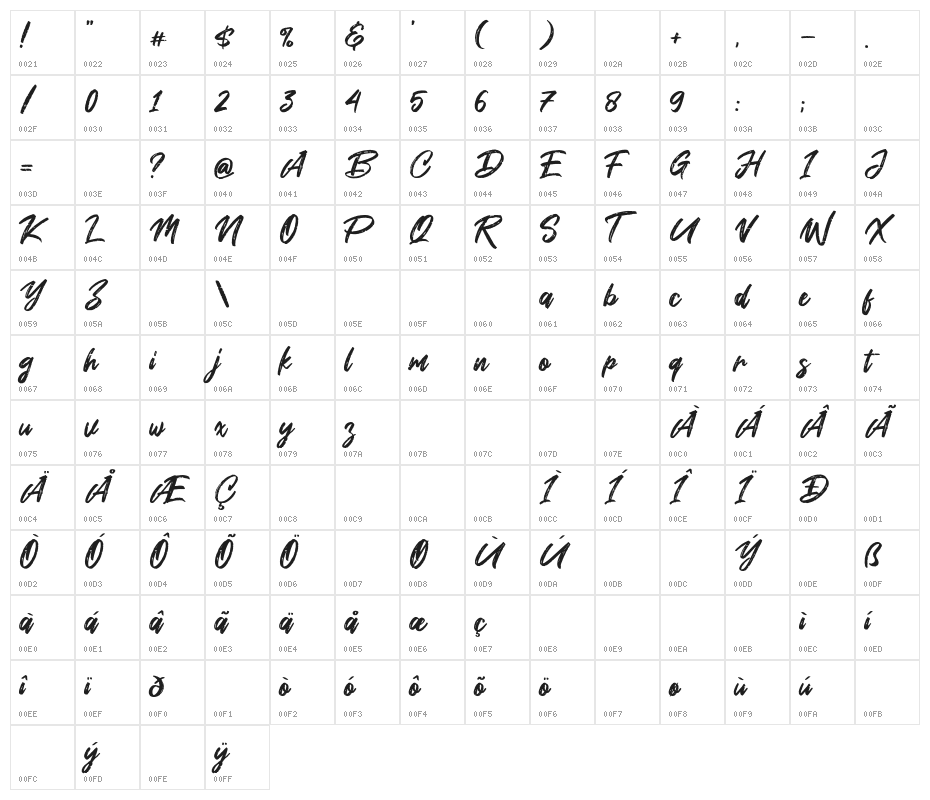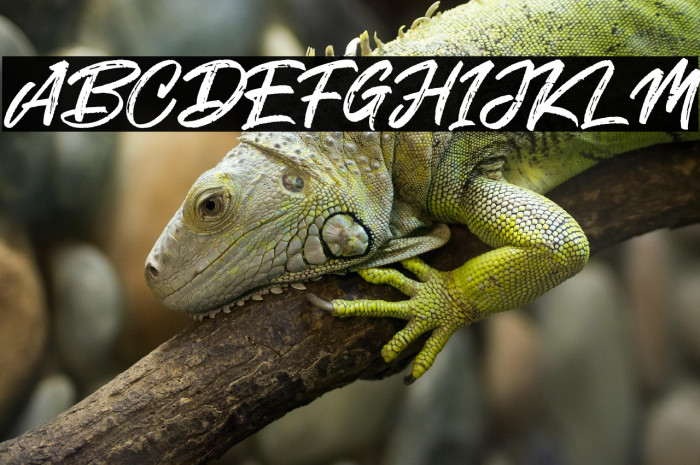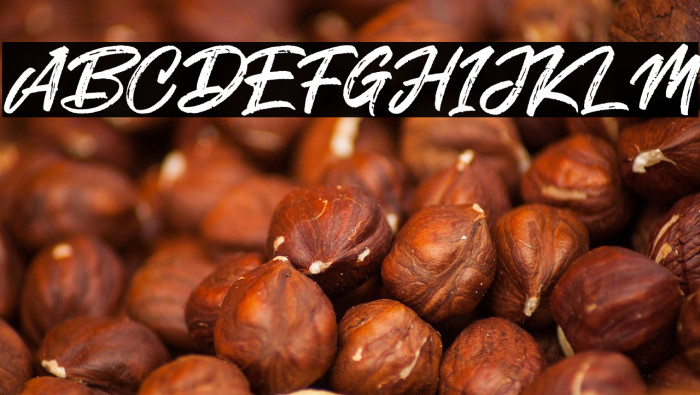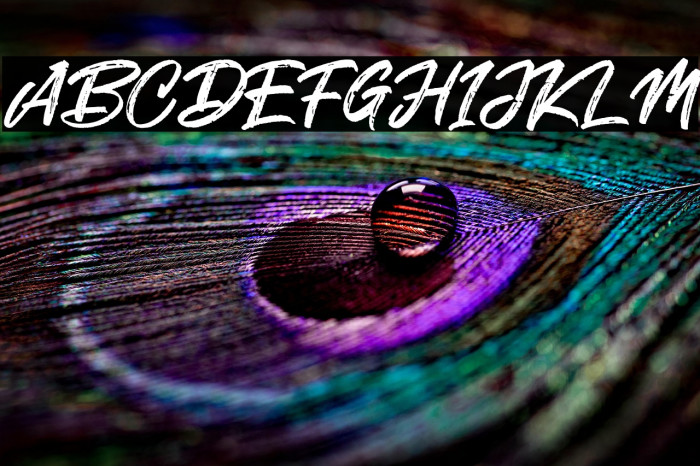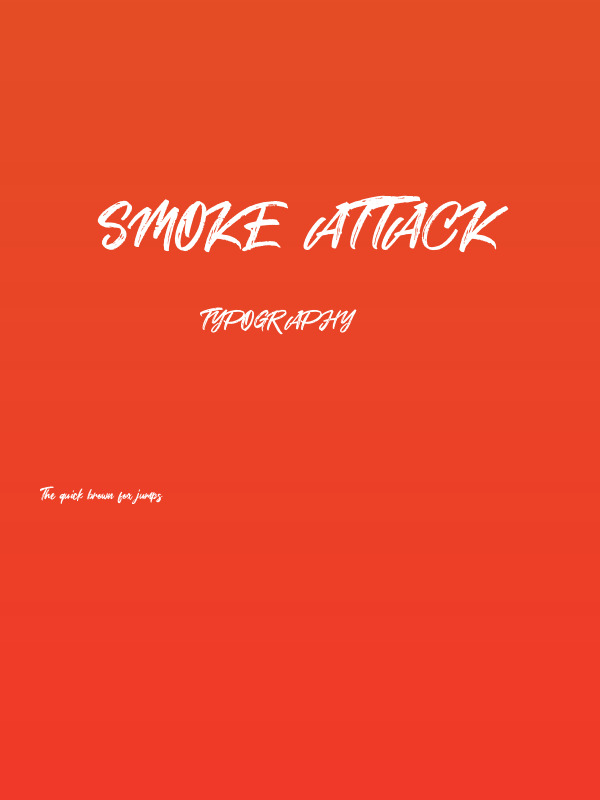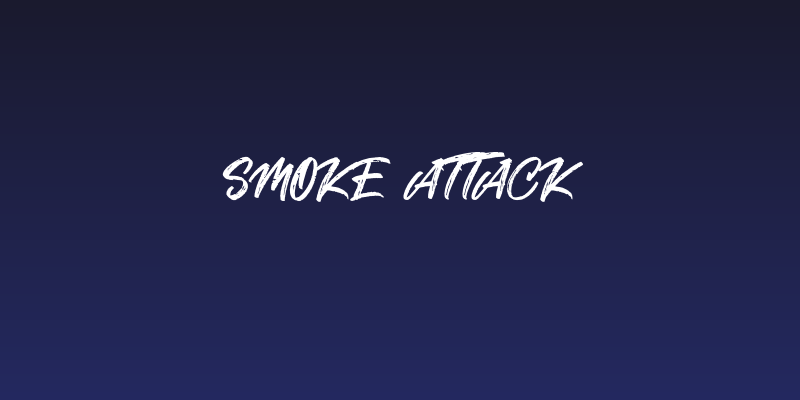
Smoke Attack Font
Smoke Attack Description
This font features a bold, expressive script style with a dynamic and energetic flair. The letters are crafted with a brush-like texture, giving them a hand-painted appearance. The uppercase and lowercase characters maintain a consistent flow, with some letters extending slightly beyond the baseline, adding to its casual yet artistic look. The numerals are equally bold and maintain the same brush-stroke aesthetic. Special characters are included, matching the overall style with a playful and creative touch. This font is ideal for projects that require a personal, handcrafted feel.
| Proposed Projects | Ideal for branding, logos, posters, and creative design projects that require a personal touch. |